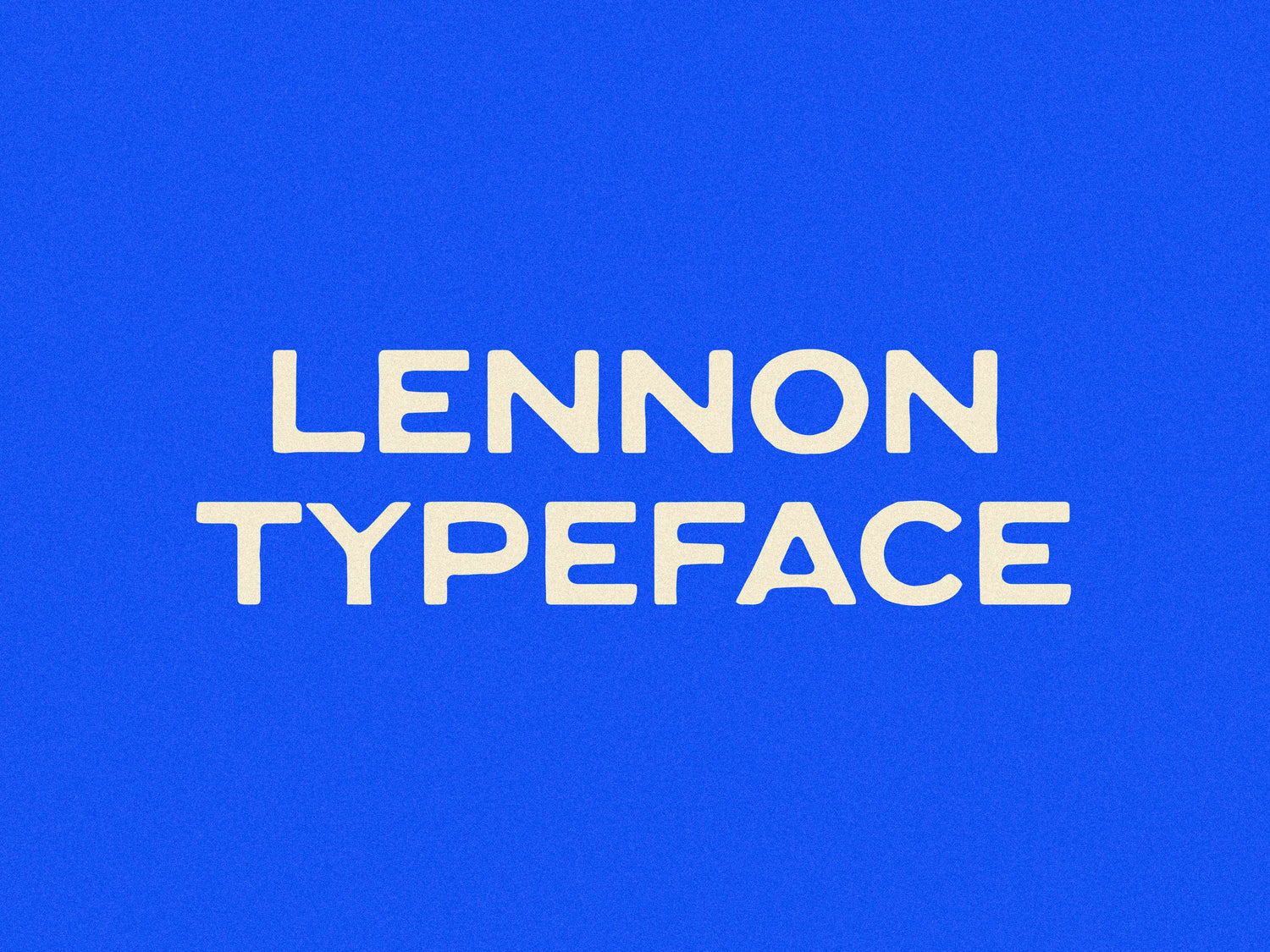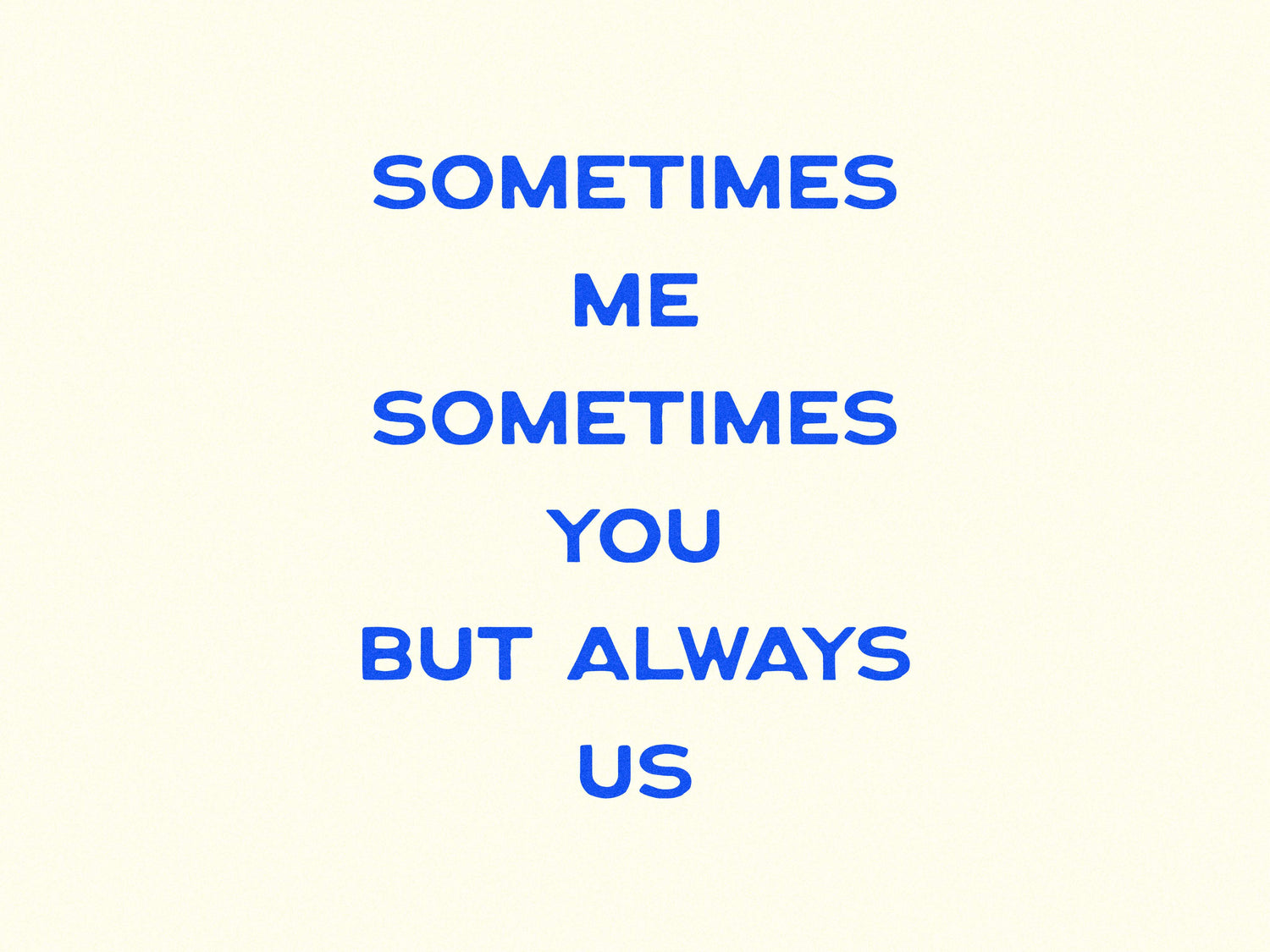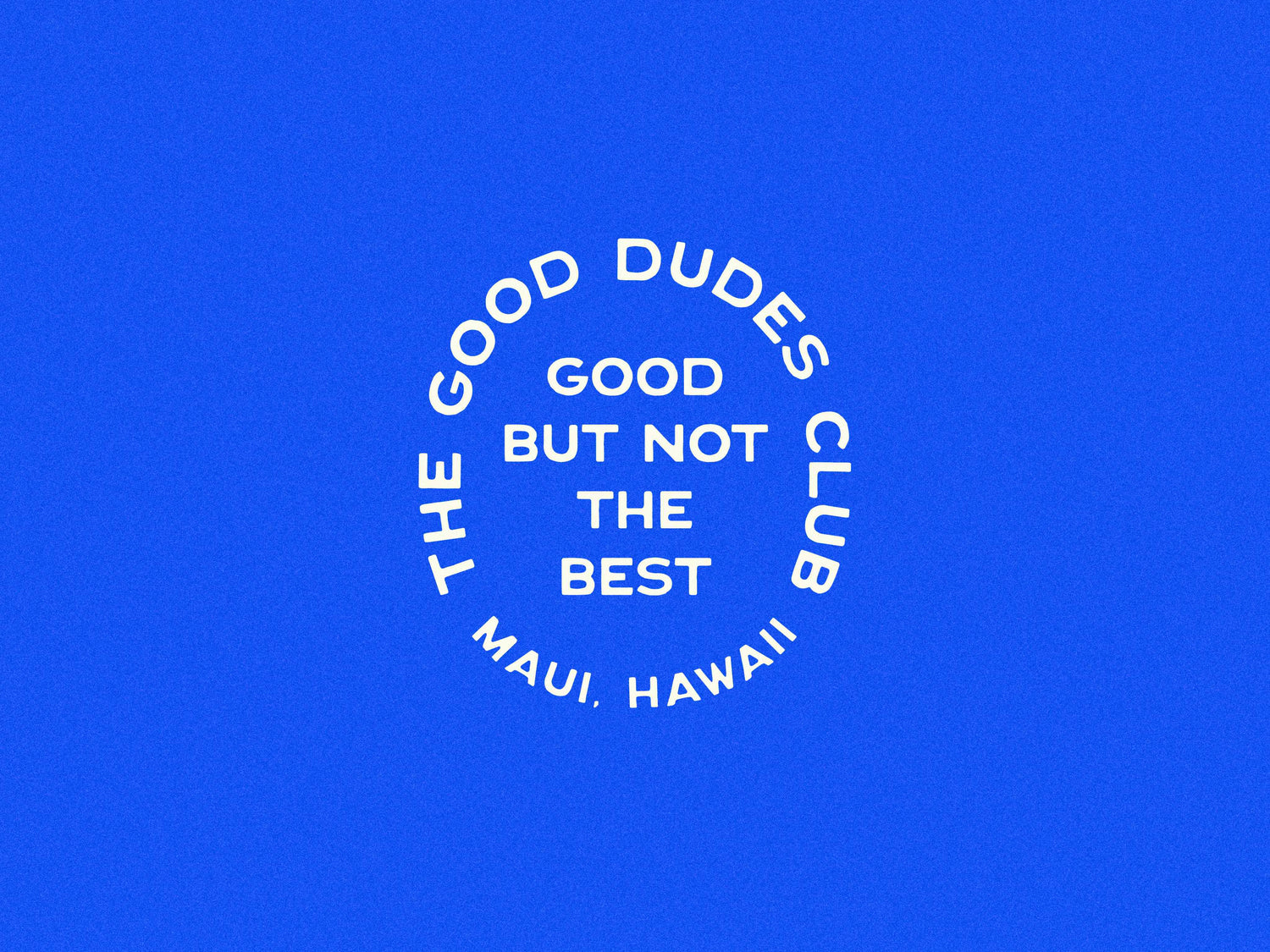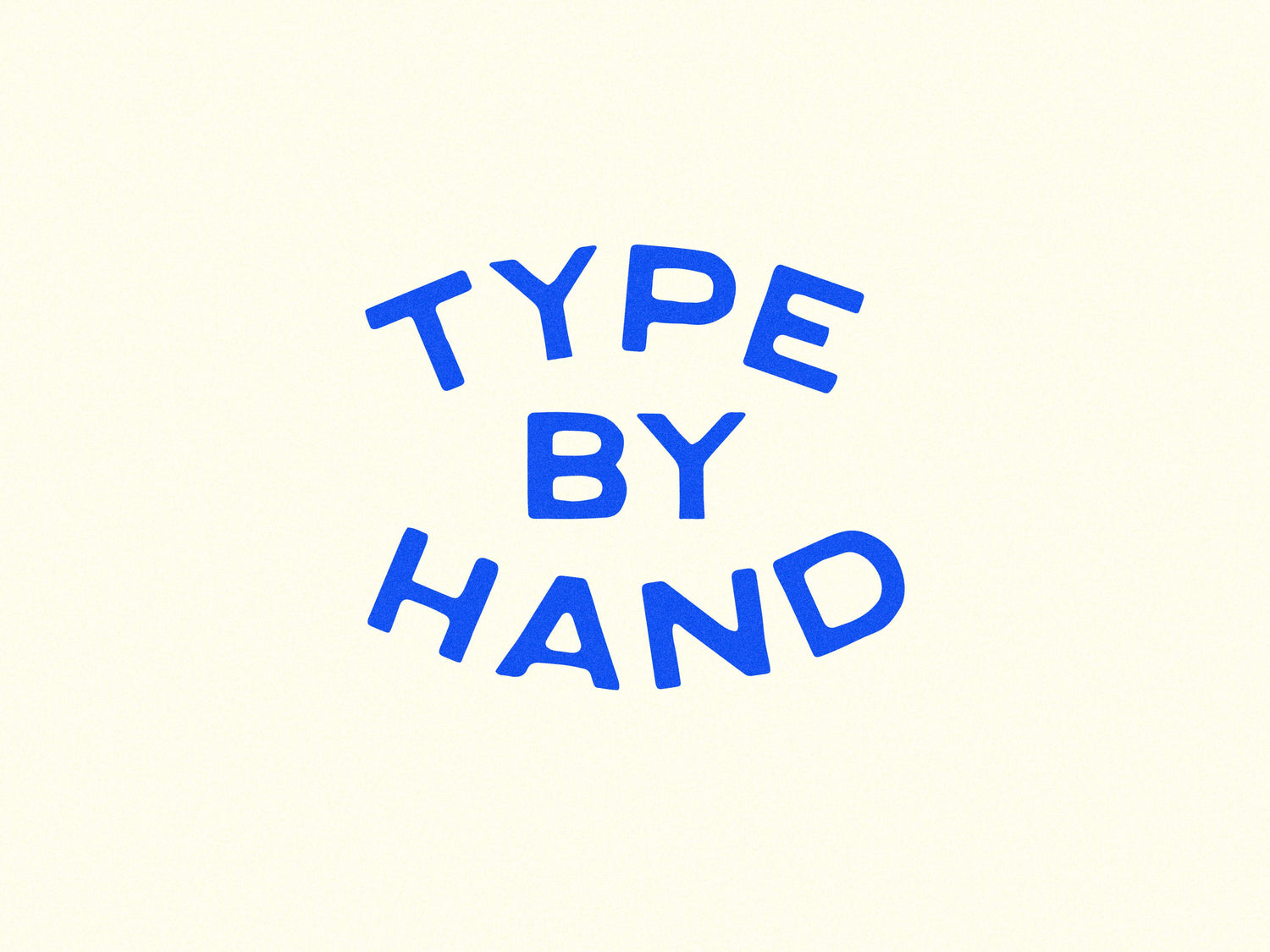
Lennon
Lennon is a present-day take on vintage packaging lettering.
Rounded edges, wide letterforms, and hand-drawn imperfections give it just enough charm without getting too cute. It’s one of the most popular fonts in the shop — probably because it’s easy to use and hard to mess up.